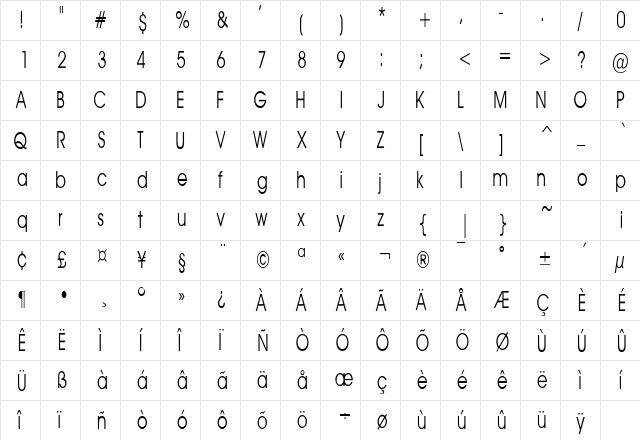
AvantGuardCondSW Regular
AvantGuardCondSW is a composed and adaptable typeface that performs quietly and consistently across a wide range of design contexts. Its narrow stance lets it pack a punch even in space-constrained designs.